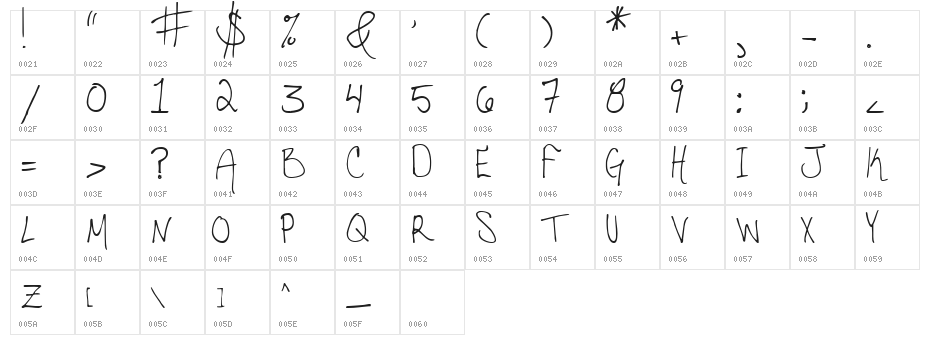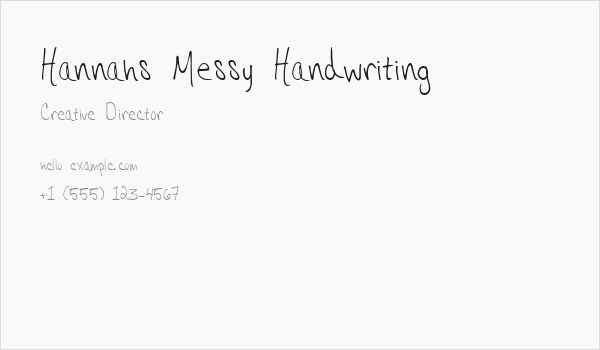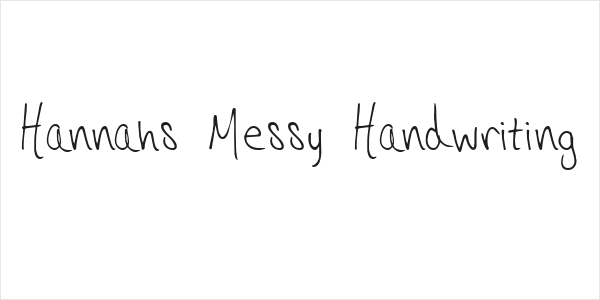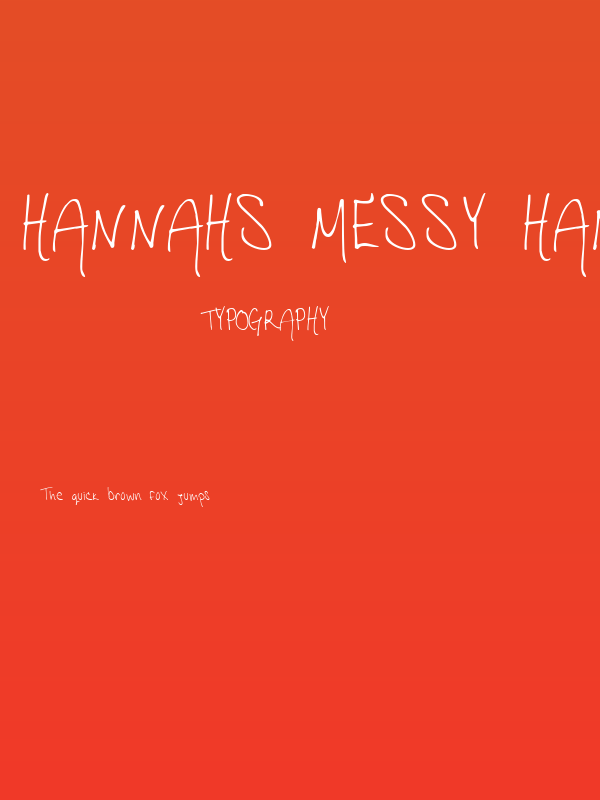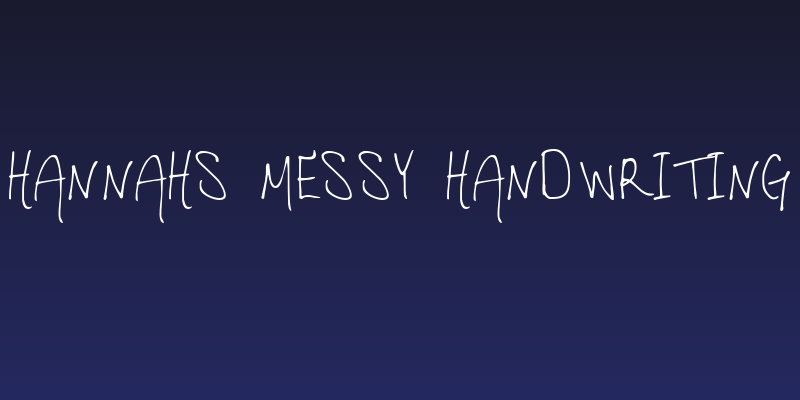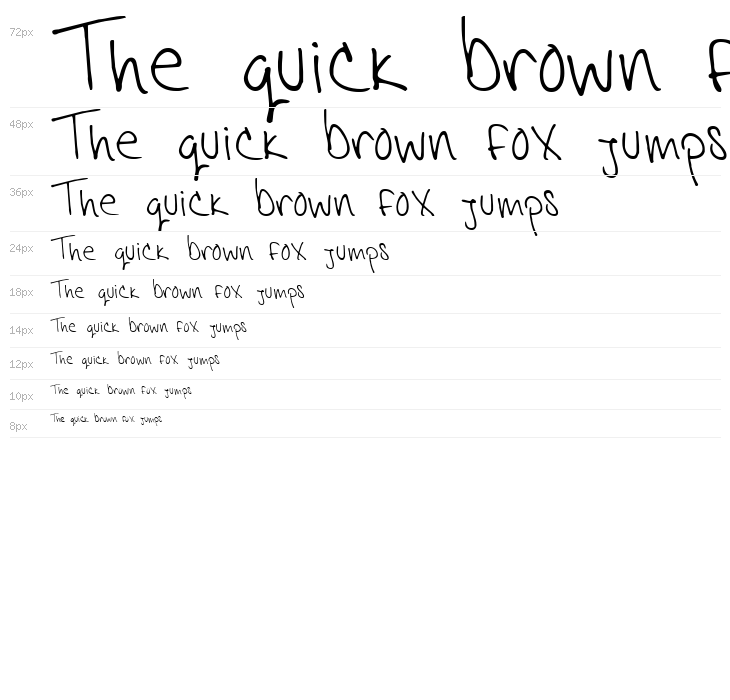
Hannahs Messy Handwriting Font
Hannahs Messy Handwriting Description
This font exudes a playful and casual vibe, reminiscent of authentic, handwritten notes. The characters are unevenly spaced, with a slightly irregular baseline, adding to its informal charm. The strokes are smooth and fluid, with varying thickness that gives it a lively and dynamic appearance. The uppercase letters are bold and prominent, while the lowercase letters maintain a consistent flow. Numbers and special characters are crafted with the same whimsical style, ensuring a cohesive look across all text. This font is perfect for projects that require a personal touch, such as greeting cards, invitations, or creative branding materials.
| Use Case | Creative projects, personal notes, informal communications. |
| Proposed Projects | Ideal for greeting cards, invitations, personal notes, and creative branding. |